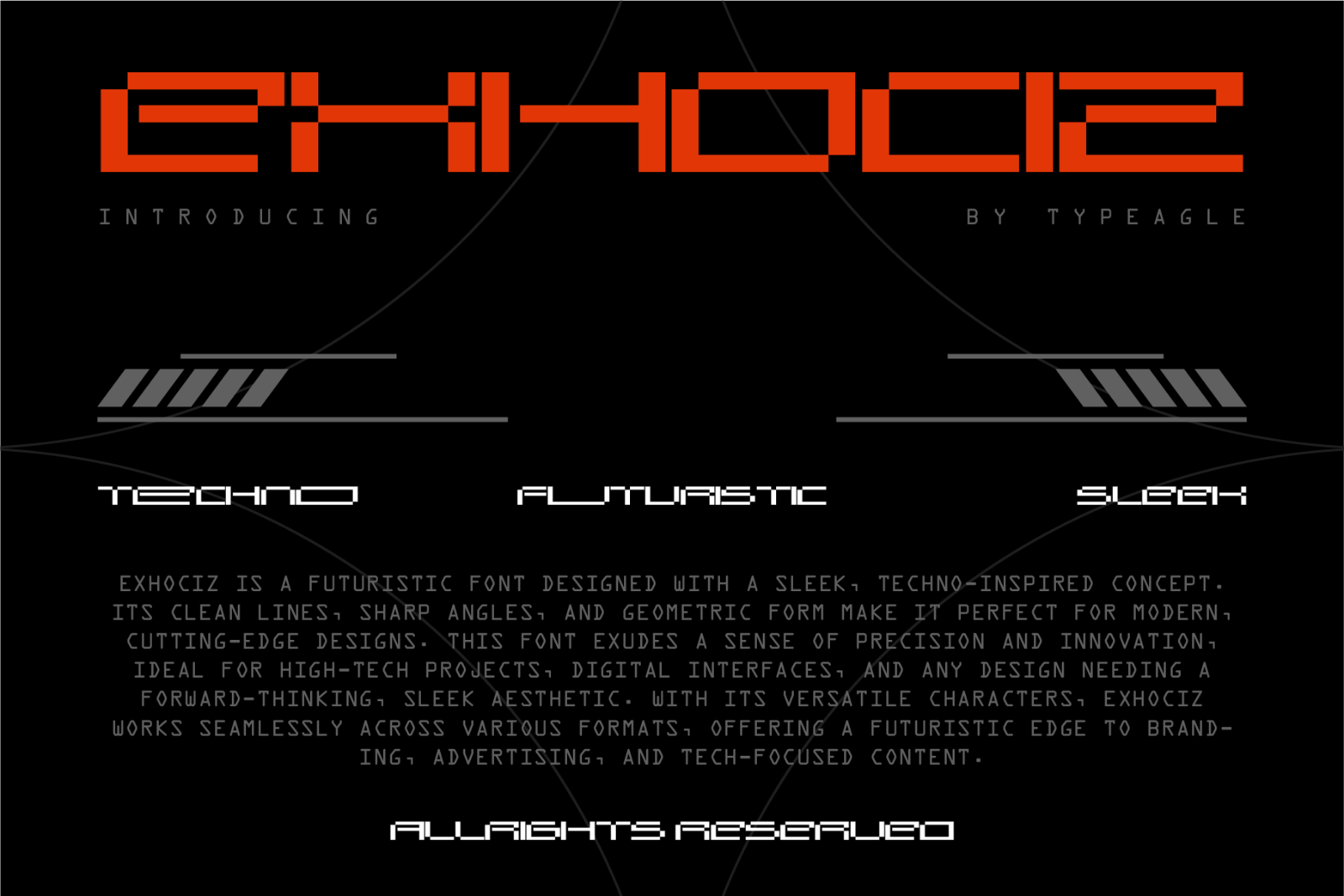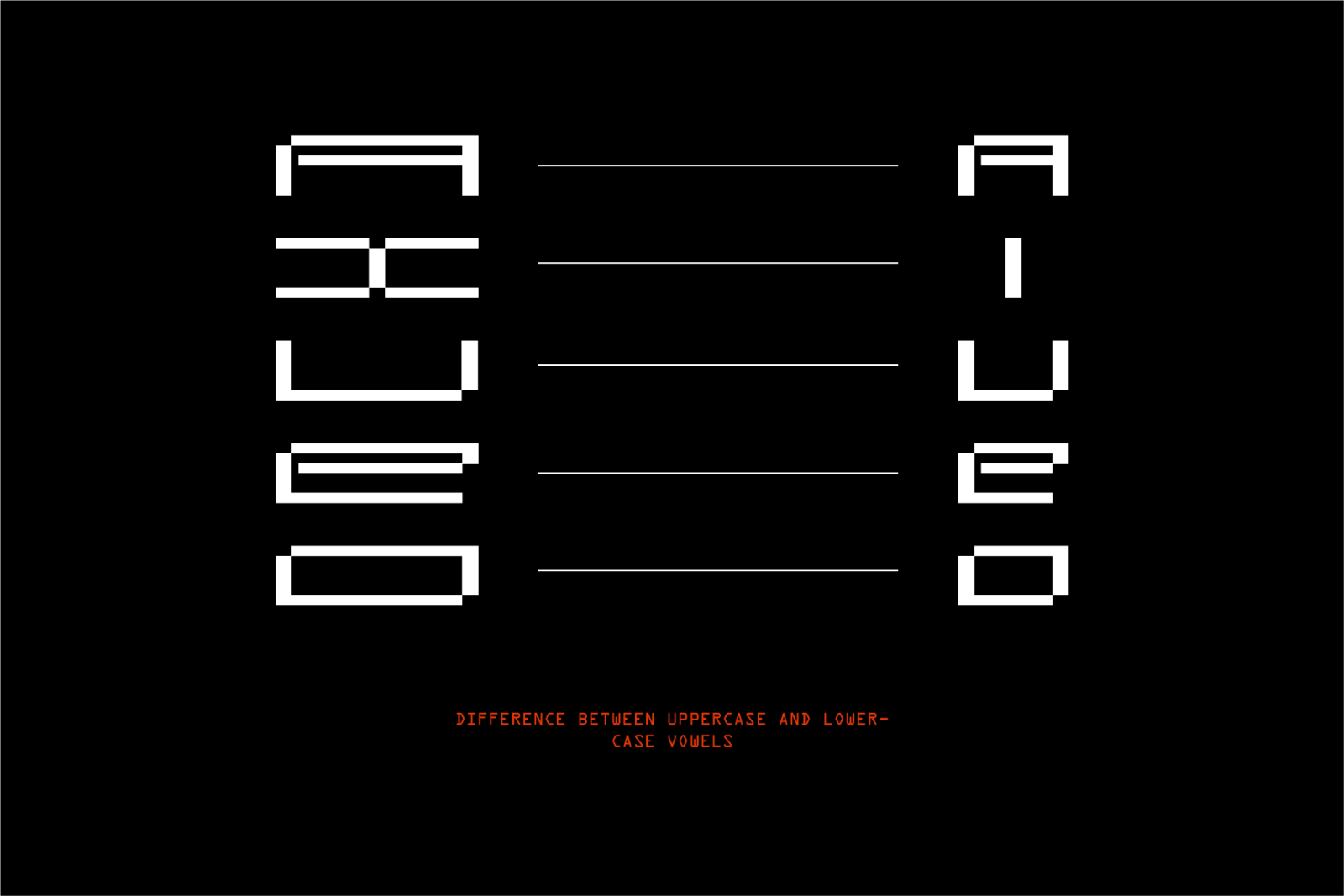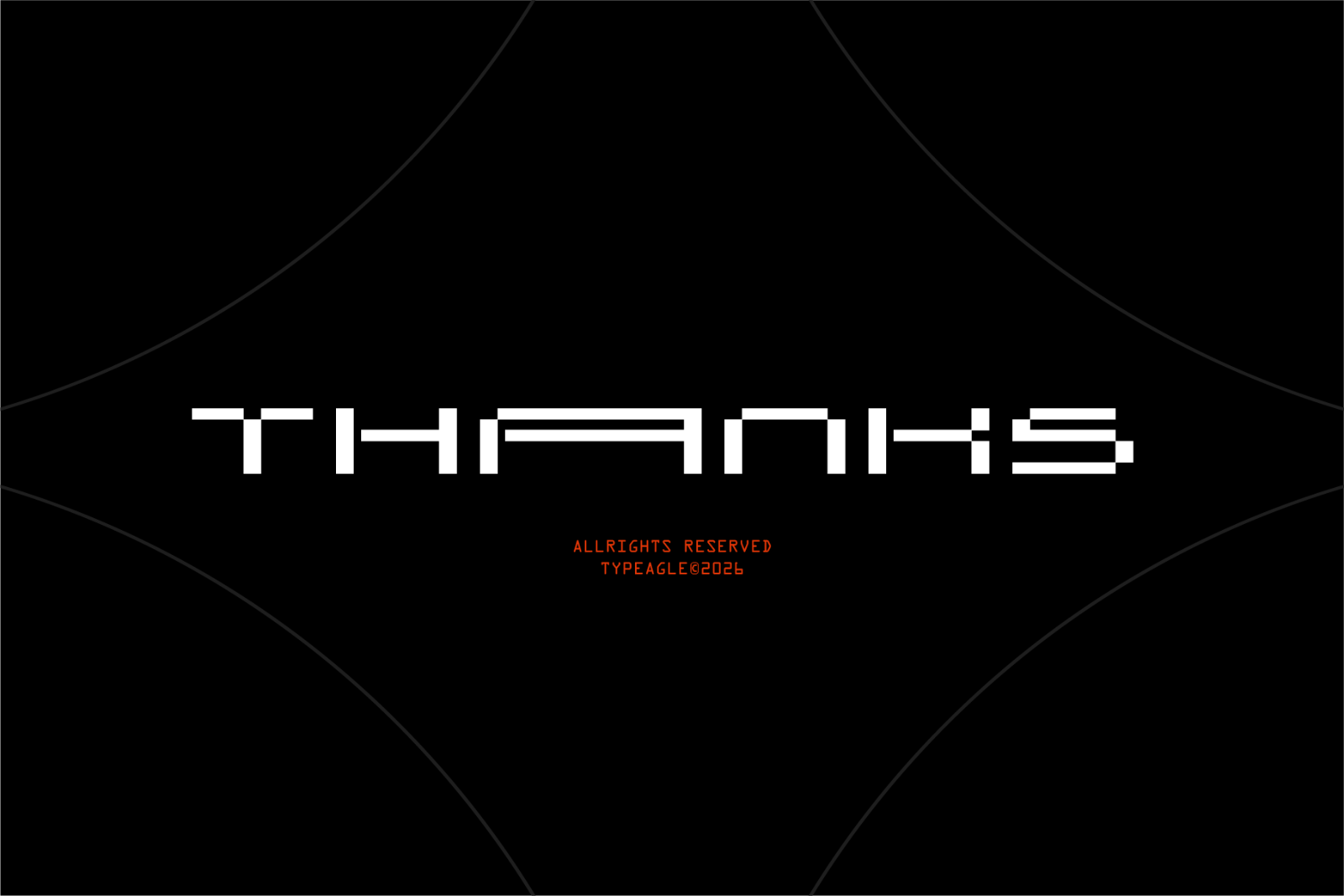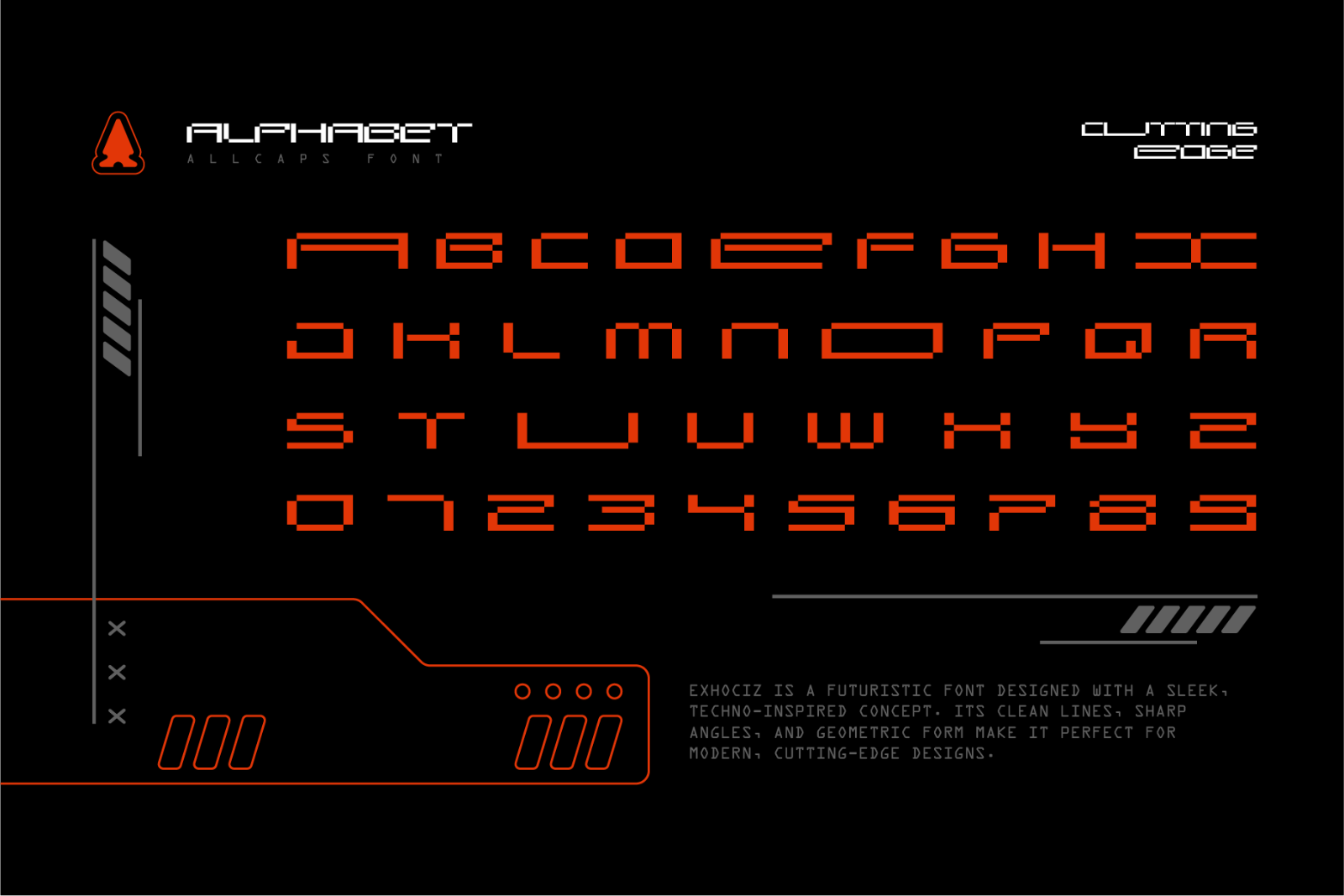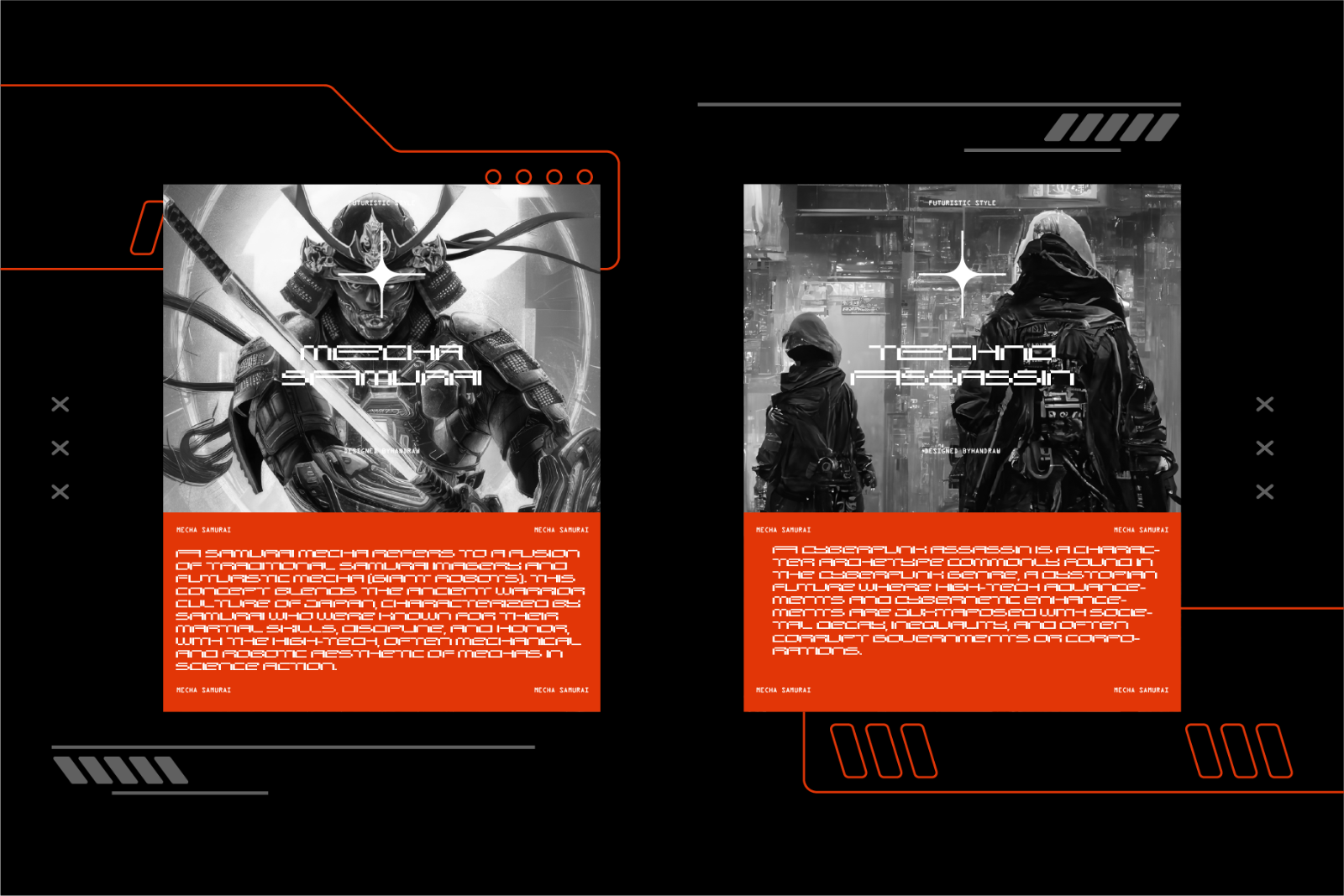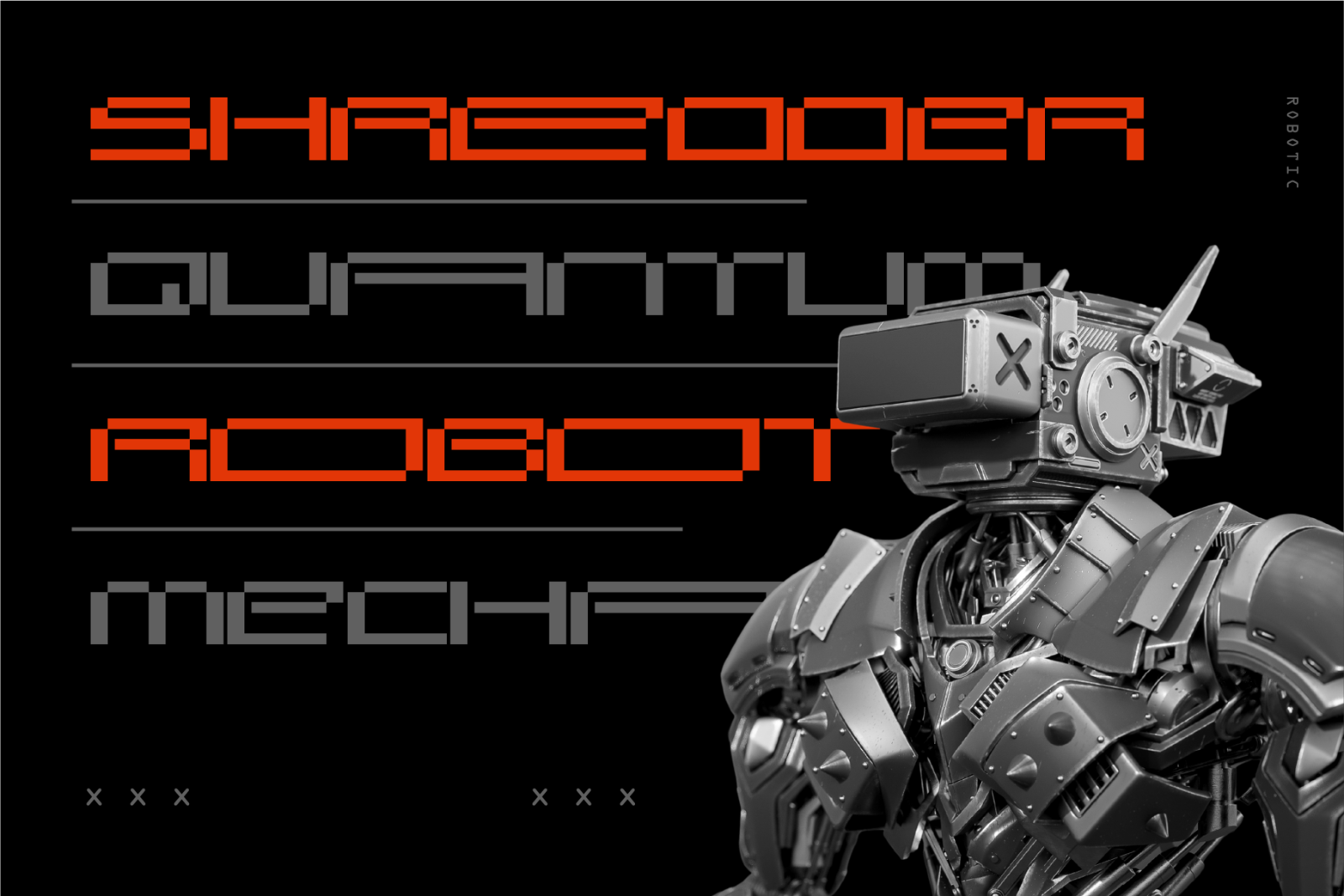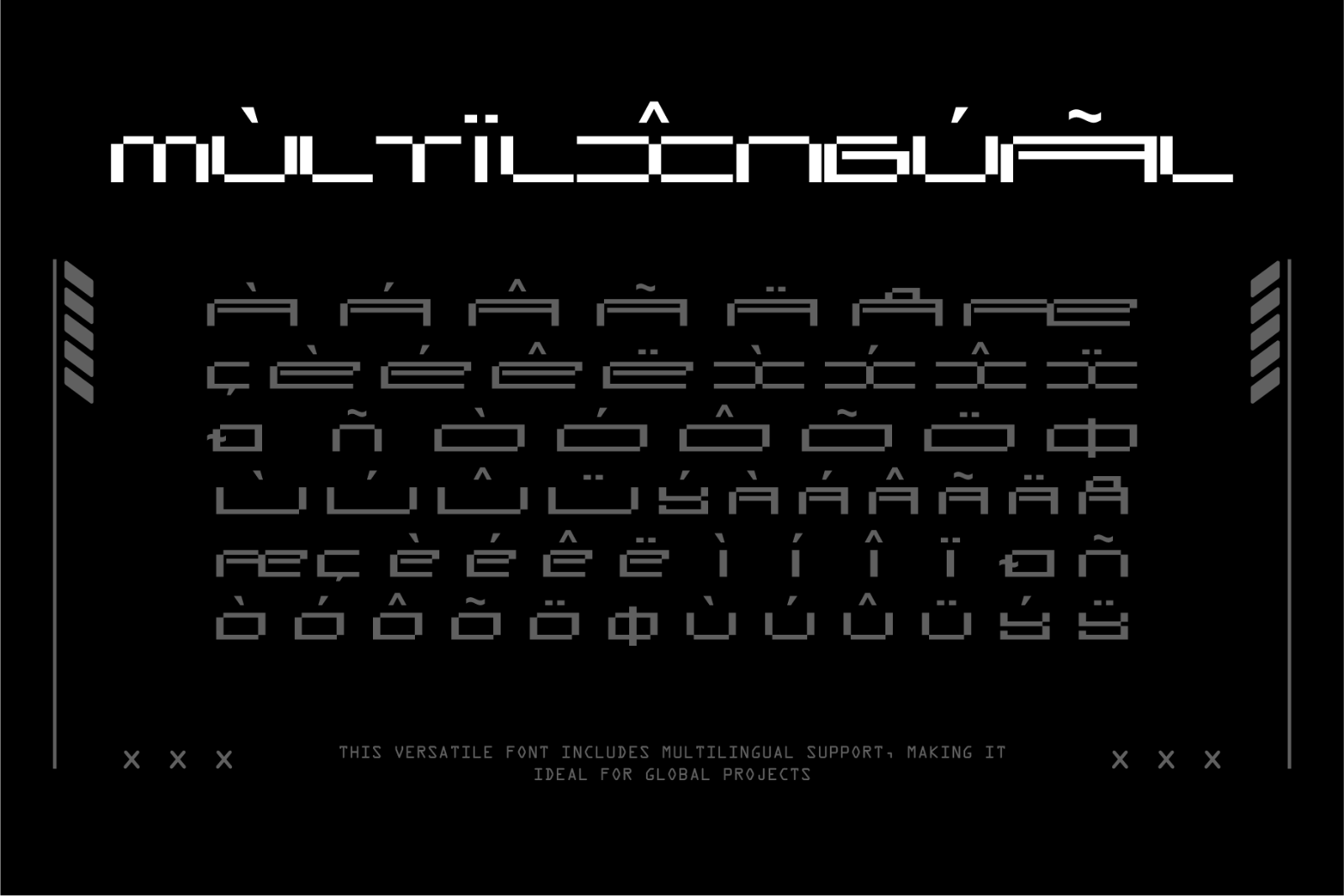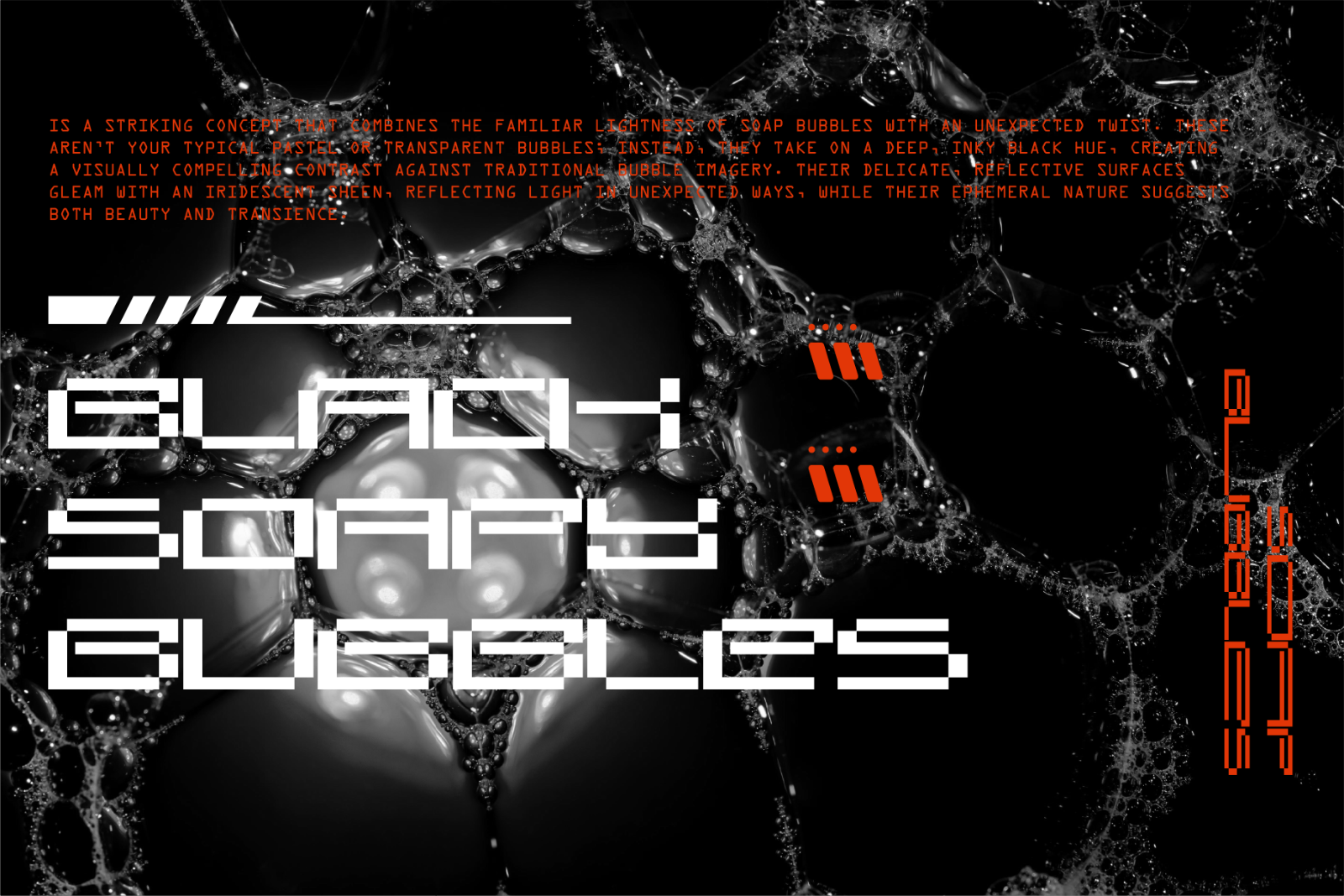
MarketplaceFontsExhociz - Futuristic Display Font
Exhociz is a futuristic font designed with a sleek, techno-inspired concept. Its clean lines, sharp angles, and geometric form make it perfect for modern, cutting-edge designs. This font exudes a sense of precision and innovation, ideal for high-tech projects, digital interfaces, and any design needing a forward-thinking, sleek aesthetic. With its versatile characters, EXHOCIZ works seamlessly across various formats, offering a futuristic edge to branding, advertising, and tech-focused content.